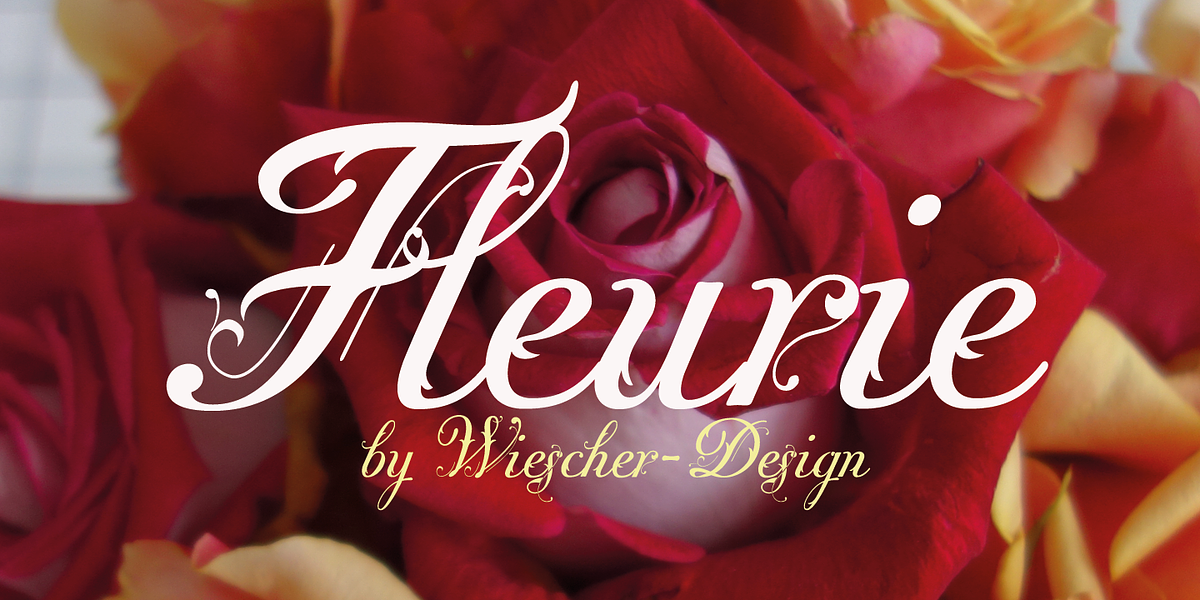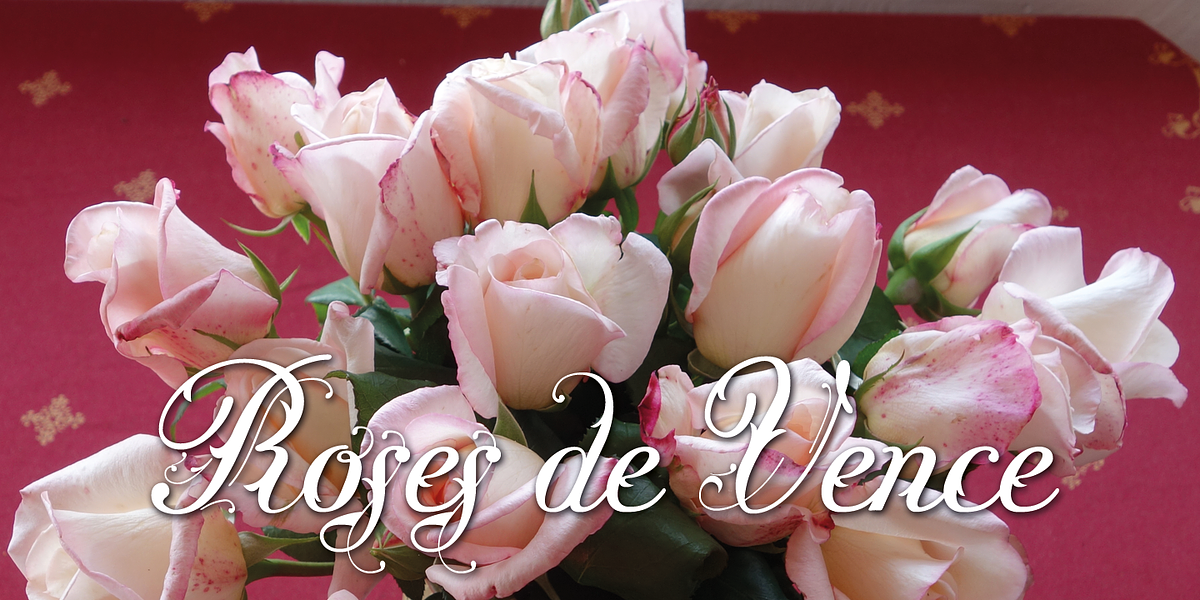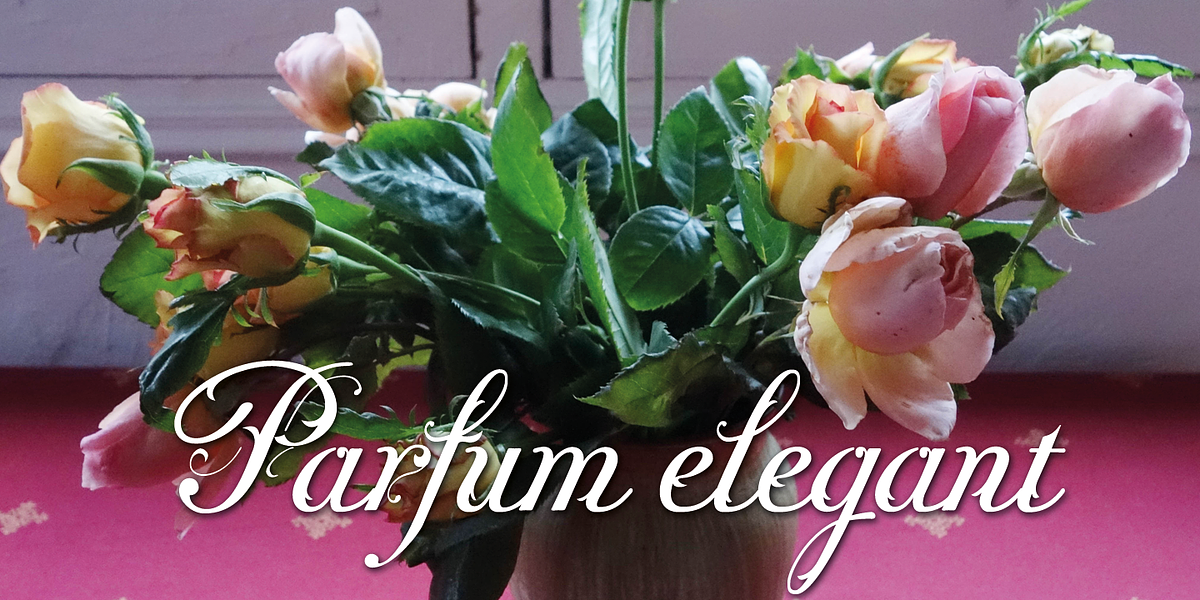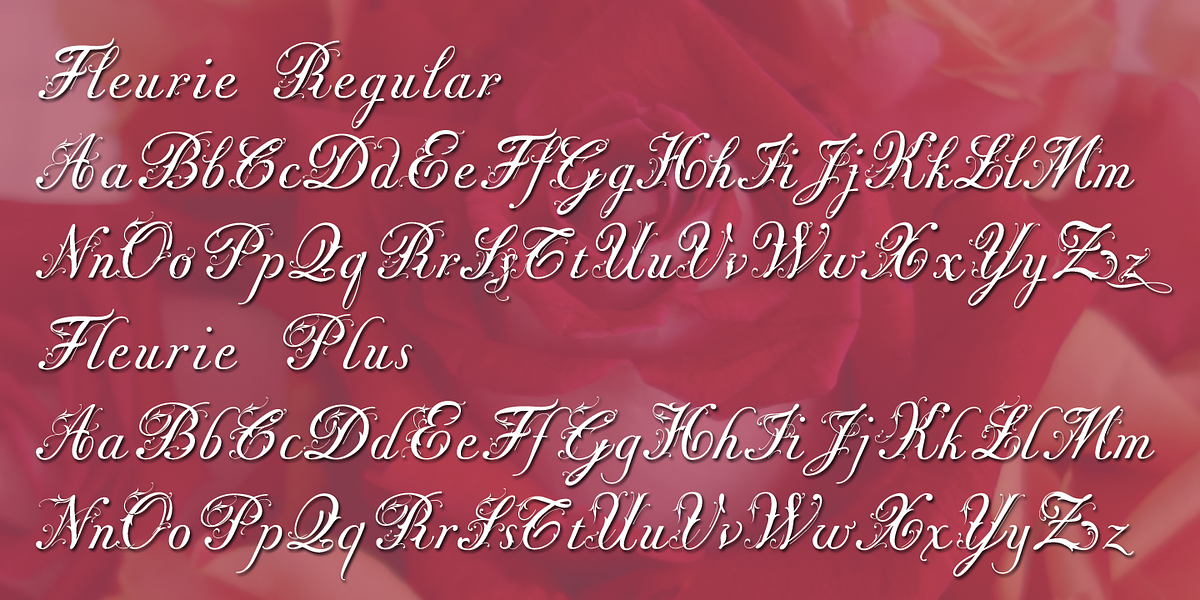
Fleurie
This formal script typeface evokes the elegance of the 1920s with its flowering swashes and ornate details. Its cursive nature makes it well-suited for display purposes.